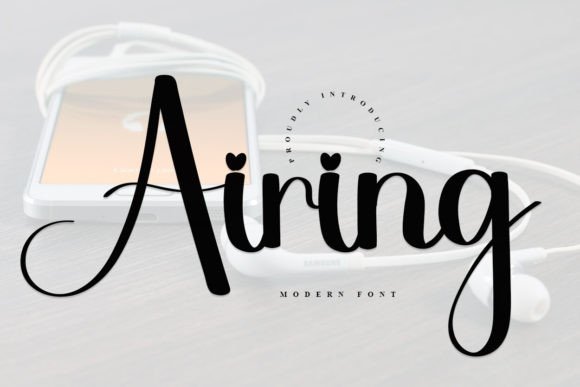
The Airing Font: A Timeless Handwritten Treasure
Have you ever been in the middle of a design project, pouring your heart and soul into every detail, only to hit a roadblock when it comes to choosing the perfect font? I certainly have! It was during one of those moments that I stumbled upon the Airing font, a lovely and timeless handwritten font that has since become a staple in my design toolkit.
A Personal Design Moment: Finding the Perfect Font
I was working on a branding project for a client who wanted a logo that exuded warmth, friendliness, and approachability. I had a clear vision of the design, but I just couldn’t find a font that fit the bill. That was until I discovered Airing. Its unique, hand-crafted feel and beautiful letterforms instantly resonated with me, and I knew I had found the perfect fit.
So, what makes Airing so special? Here are a few things I love about this font:
• ✨ Unique and beautiful letterforms that add a personal touch to any design
• 💫 Supports OpenType features, glyphs, and stylistic alternates for added versatility
• 🎨 Perfect for creating eye-catching logos, branding, and quotes
Of course, no font is perfect, and Airing is no exception. Here are a few quirks to keep in mind:
• 🤔 Some users may find the font a bit too ornate for certain design applications
• ⚠️ Limited availability of certain characters and glyphs in certain platforms
The Story Behind Airing: Designer Inspiration
Airing was designed with the intention of creating a font that would bring a touch of warmth and personality to any design. The designer wanted to create a font that would feel approachable, yet elegant, and we’re thrilled to see how it’s being used in the design community.
What is Airing font best used for? Airing is perfect for creating eye-catching logos, branding, and quotes. Its unique, hand-crafted feel makes it ideal for designs that require a personal touch.
Does Airing support OpenType features? Yes, Airing supports OpenType features, glyphs, and stylistic alternates. This allows for added versatility and customization in your designs.